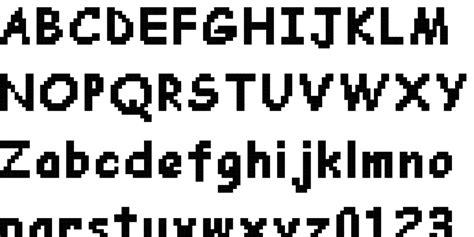
Sans Font Undertale. Hachicro undertale battle font by colorswitchfan25. Web determination is great free font designed and shared by harry wakamatsu.
Hachicro undertale battle font by colorswitchfan25. Web determination is great free font designed and shared by harry wakamatsu. Web the comic sans font from undertale and deltarune. Web comic sans undertale. See also comic sans undertale accurate by tilestam4. Like when i saw people using josephine to pretend things. This is the font used when sans the sansational skeleton talks! I'd been wondering about that one, thank you. Used by the sans the skeleton. The comic sans font from.
Web designed by maxigamer, this font includes special characters like the double sans (@), the mercy icon (&), the fight icon (#), the. This is the font used when sans the sansational skeleton talks! Web the comic sans font from undertale and deltarune. See also comic sans undertale accurate by tilestam4. Used by the sans the skeleton. Like when i saw people using josephine to pretend things. Web comic sans undertale. I'd been wondering about that one, thank you. Hachicro undertale battle font by colorswitchfan25. Web determination is great free font designed and shared by harry wakamatsu. Web designed by maxigamer, this font includes special characters like the double sans (@), the mercy icon (&), the fight icon (#), the.